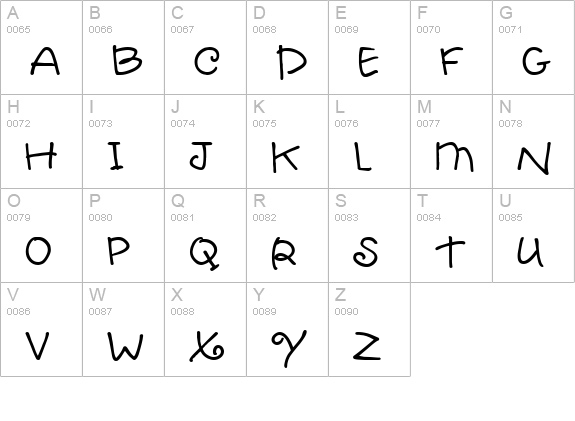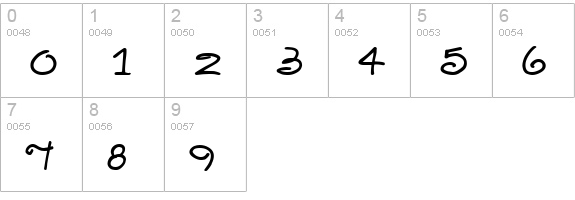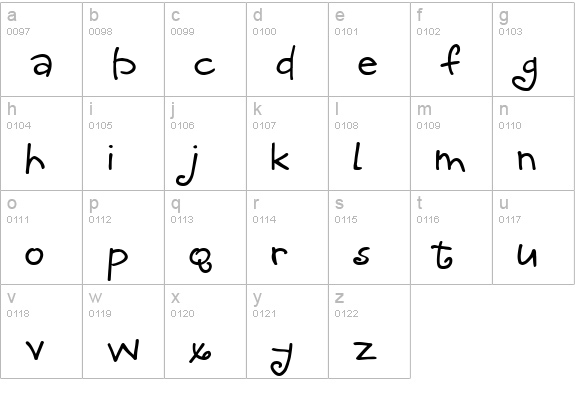
CK Daydream font is a whimsical and playful typeface that will transport you to a world of creativity and imagination. Its flowing lines and charming curves evoke a sense of wonder and dreaminess, making it perfect for adding a touch of magic to your designs. Whether you're working on a children's book, a greeting card, or a branding project, CK Daydream will add a delightful touch to your work. The best part? CK Daydream font is completely free to download at FontsMarket.com. This means you can bring this enchanting font into your projects without any cost, making it accessible to creators of all kinds. So why not let your imagination run wild with CK Daydream font today? Download it for free and start adding a dash of whimsy to your designs.